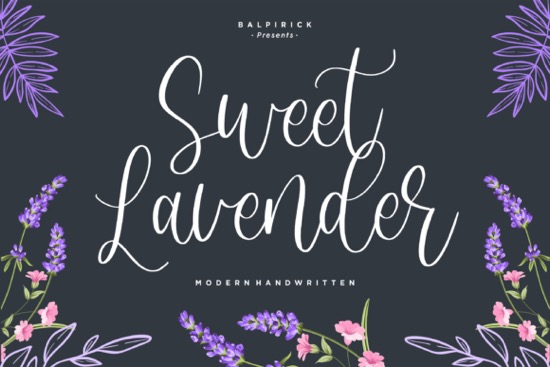
Sweet Lavender Font
by Balpirick
Sweet Lavender is a calligraphy script font, It easily cooperates together and suite for designing the vintage style. It simplifies elegance into one truly outstanding handwritten font. It maintains its classy calligraphic influences while feeling contemporary and fresh. This versatility will appeal to a wide range of crafty ideas, from letterheads and titles, to stationery.